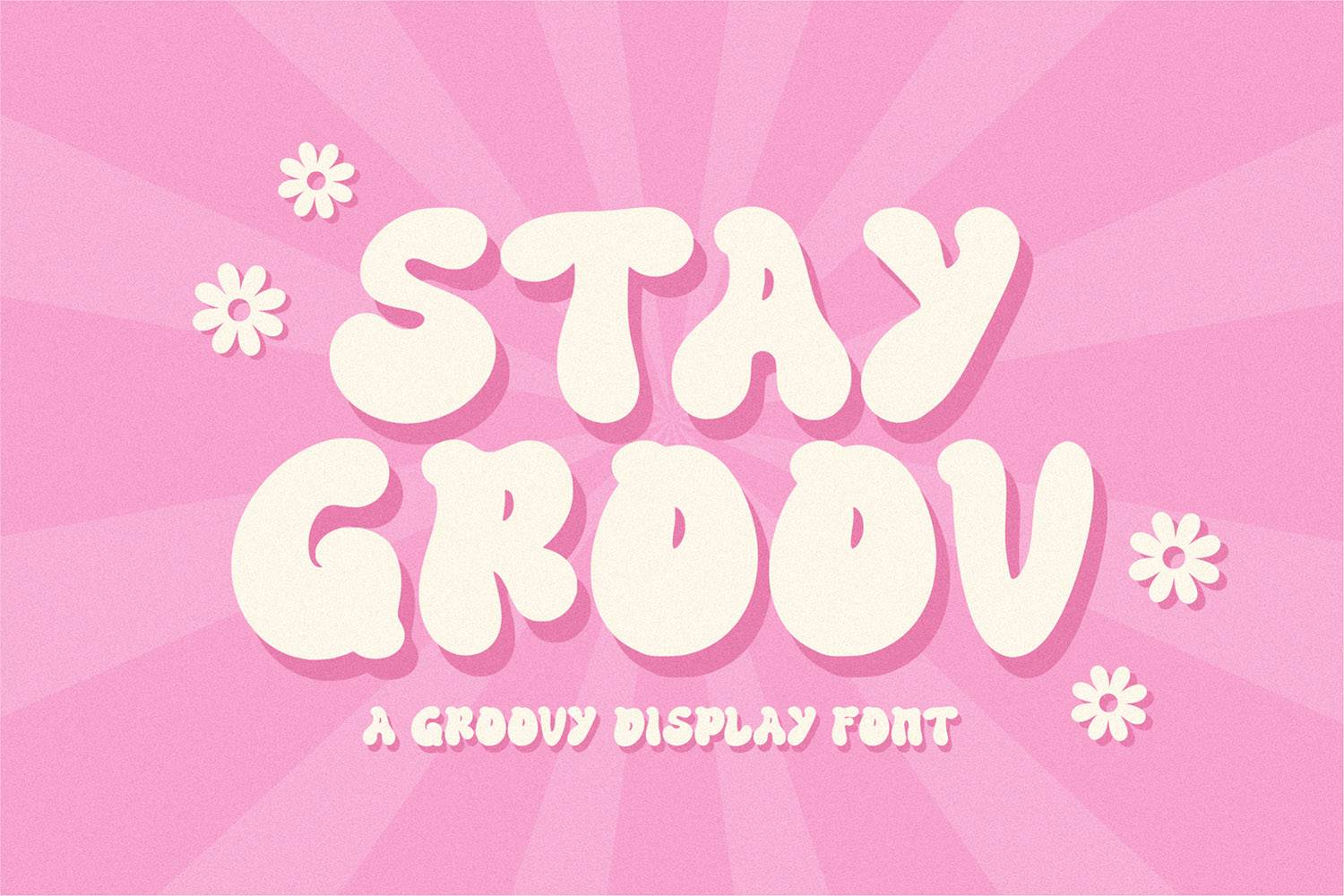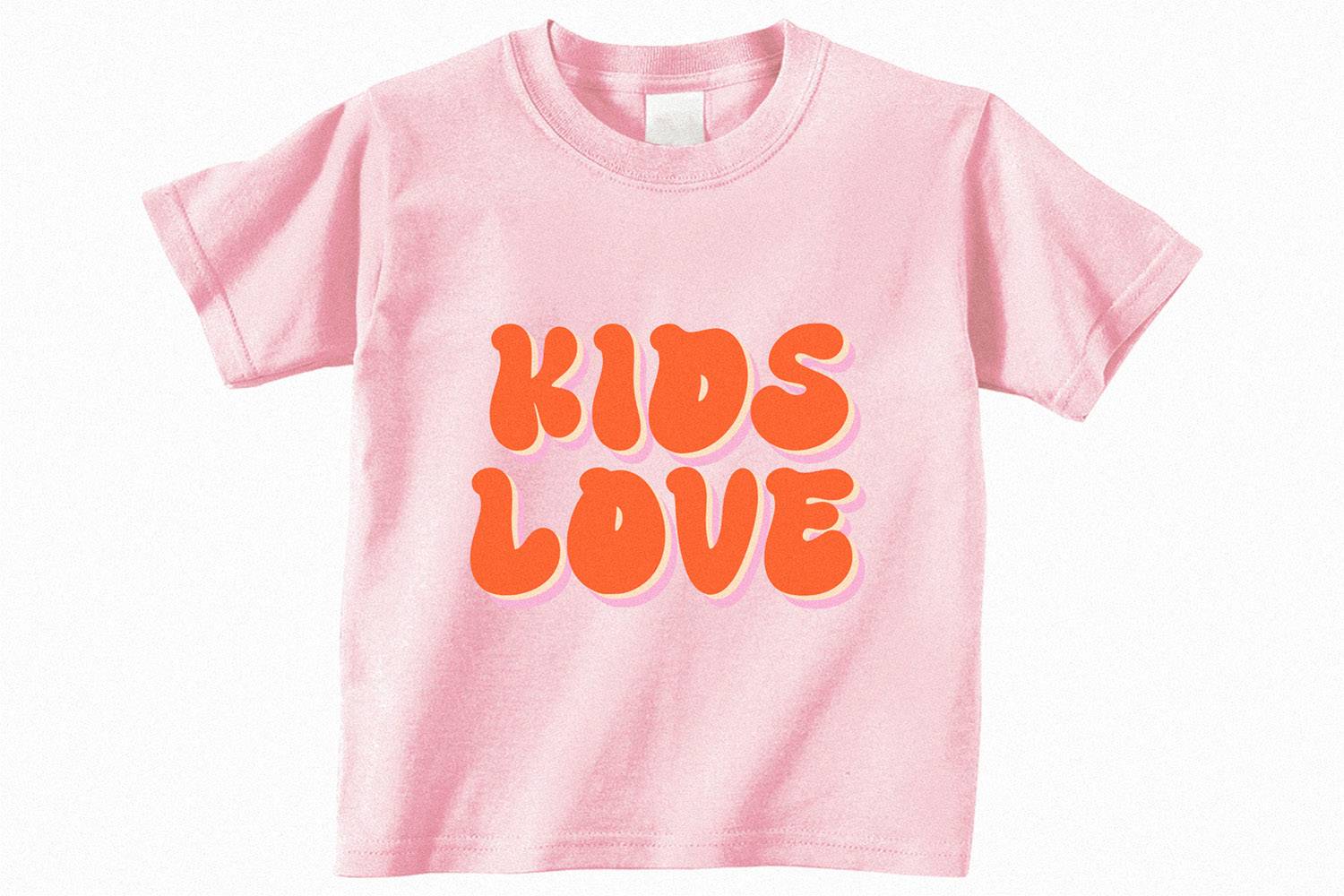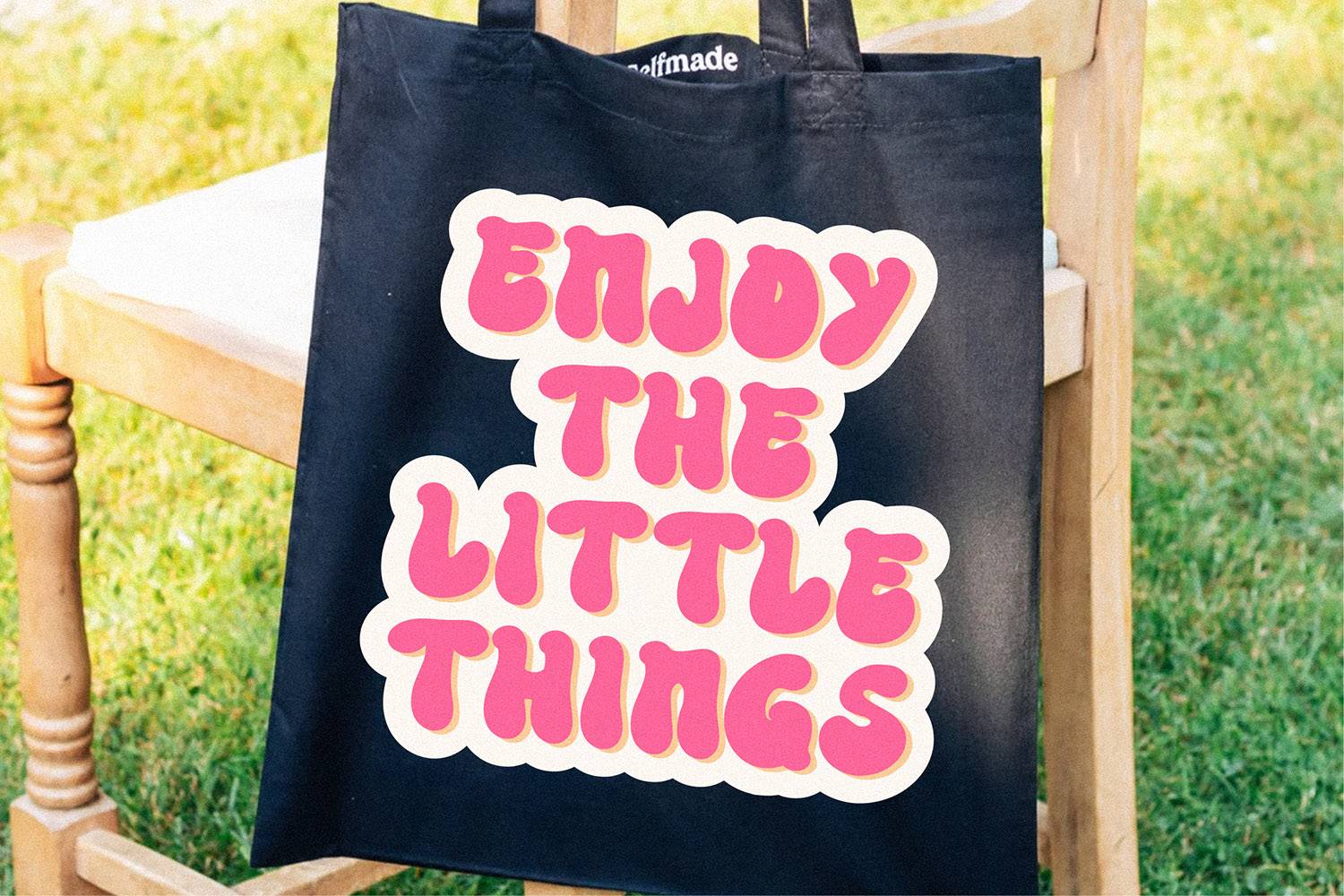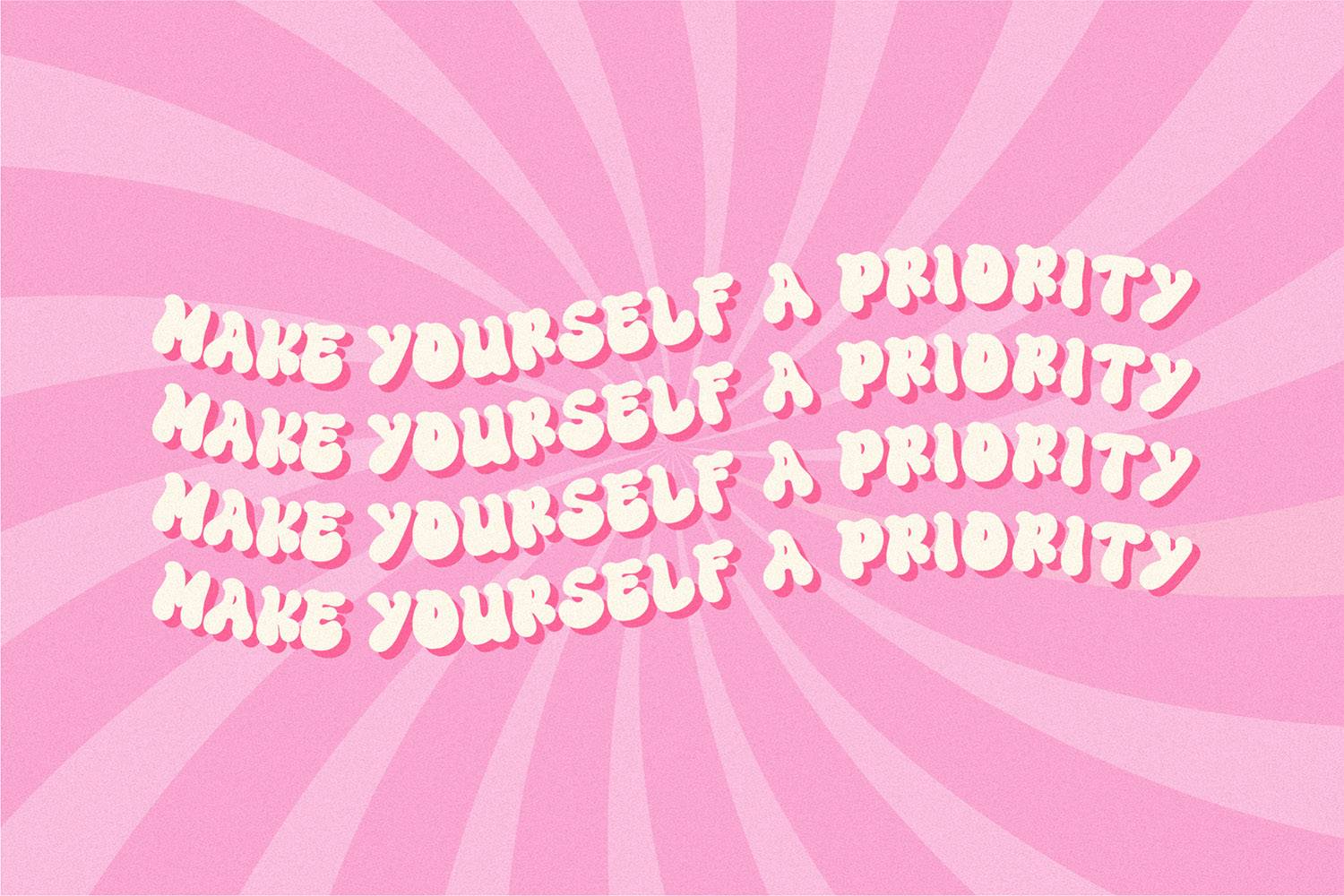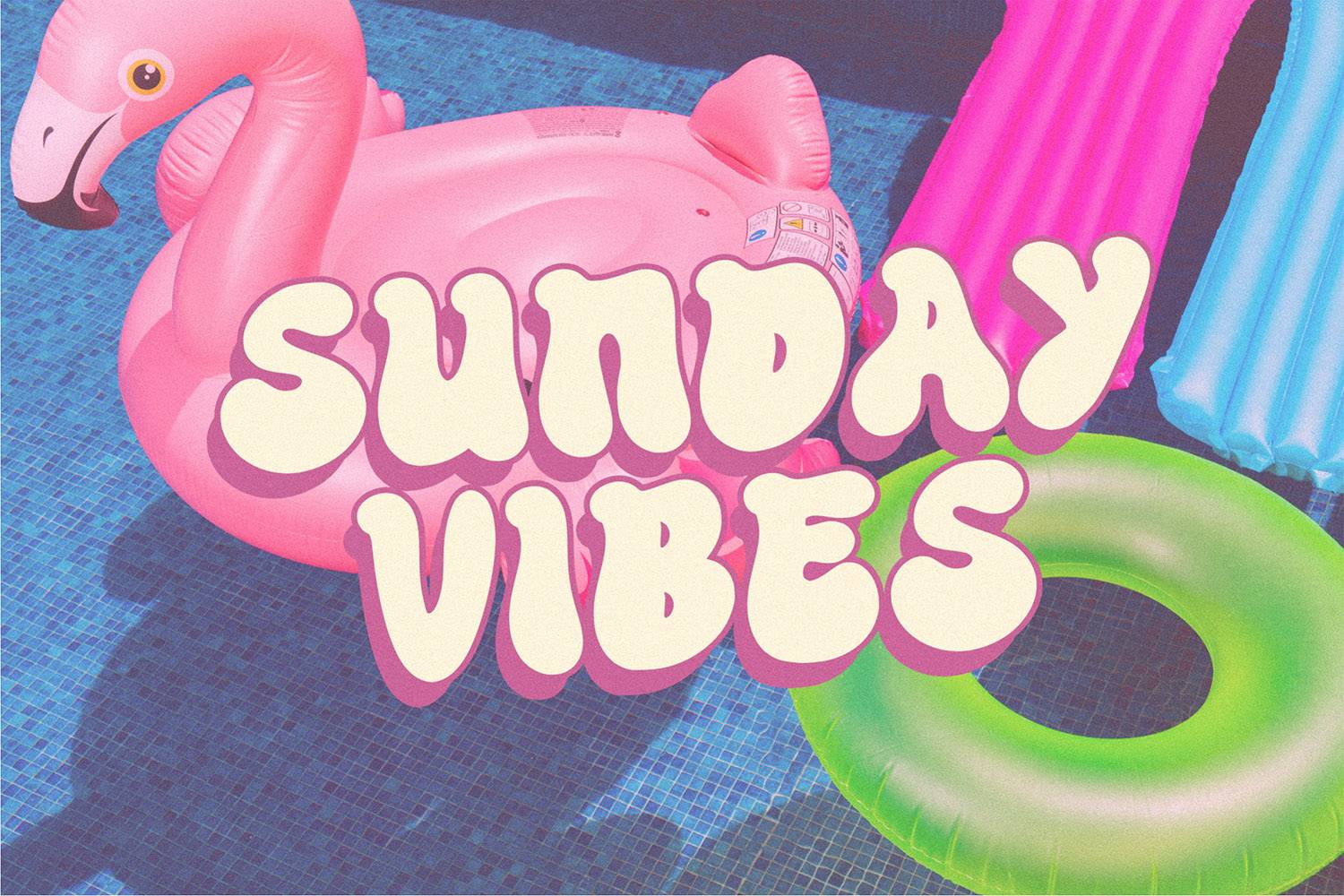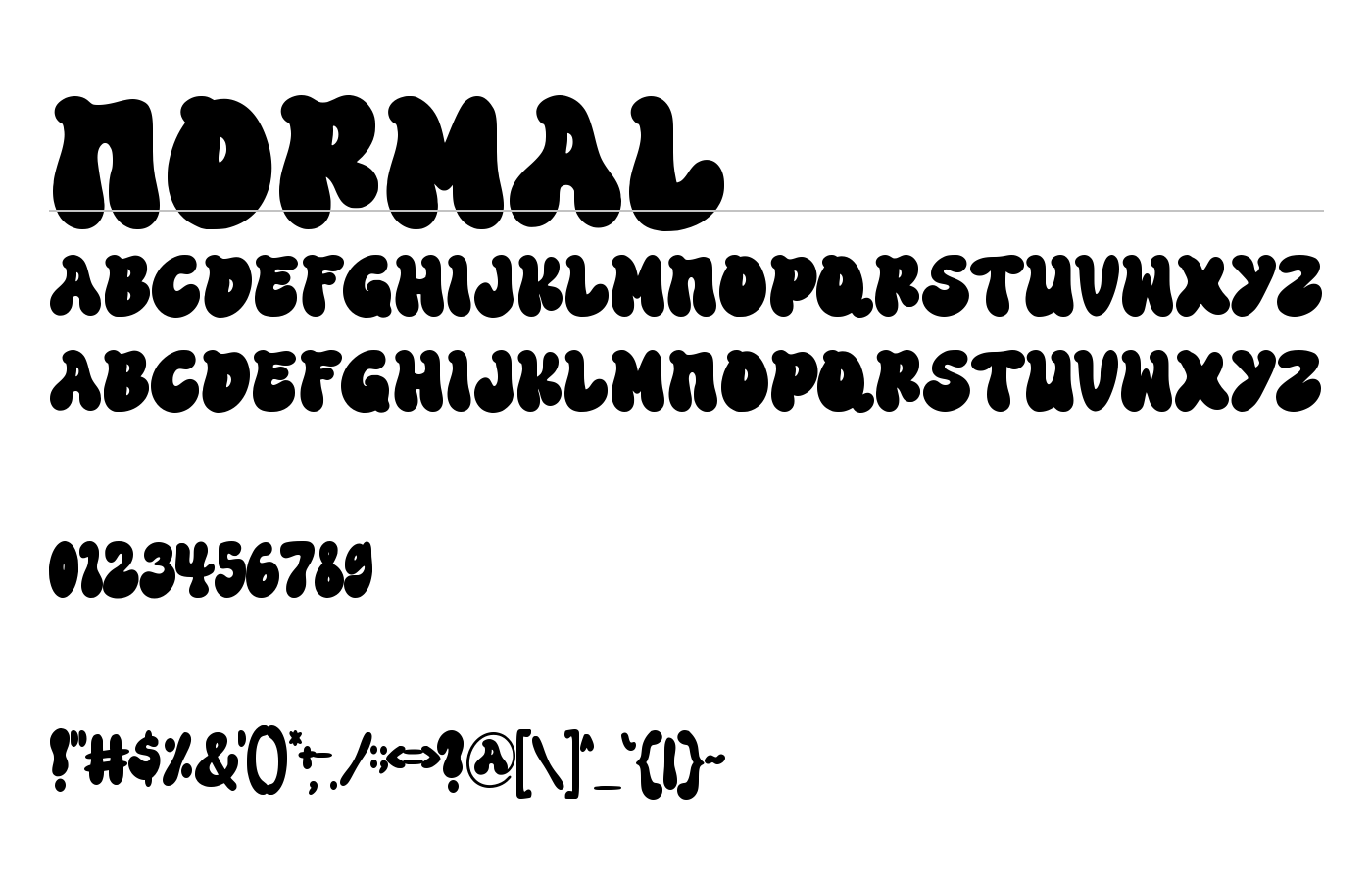
Stay Groov Font is a bold, playful display typeface with a thick, bubbly style that evokes a retro, groovy 1970s vibe. Its rounded and organic letterforms create a fun, friendly atmosphere, making it perfect for eye-catching headlines, posters, and branding that seeks a cheerful and nostalgic personality. This font works best where a strong, whimsical impact is desired, such as in creative packaging, event promotions, or youthful lifestyle brands.
Stay Groov Font
About Stay Groov Font